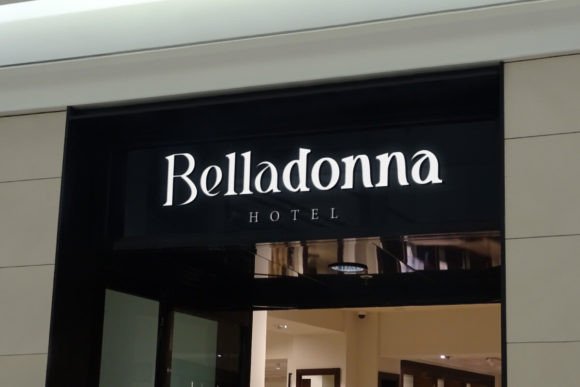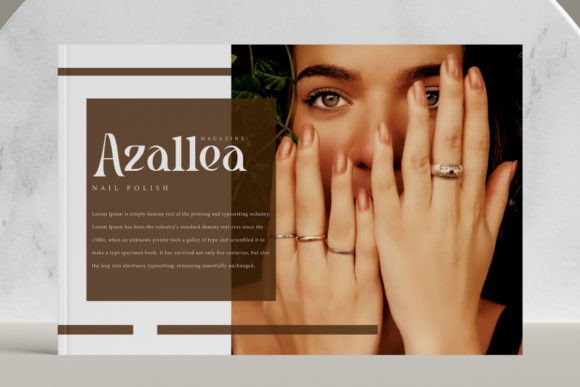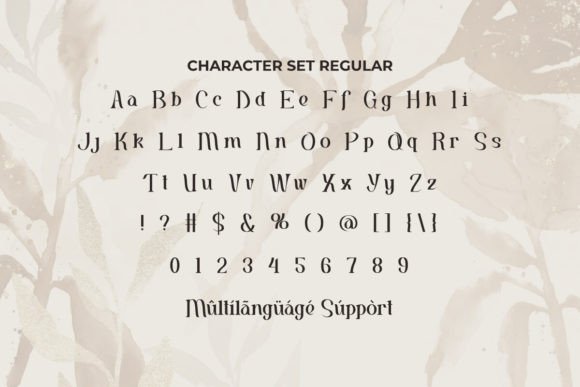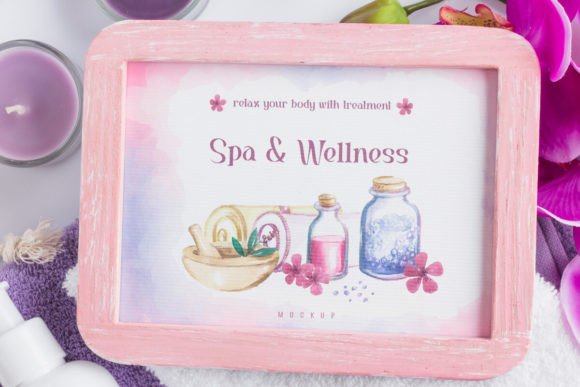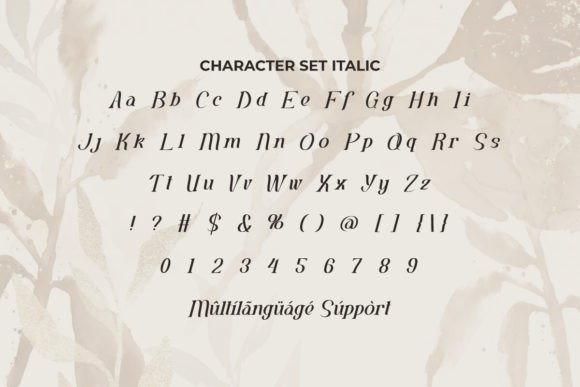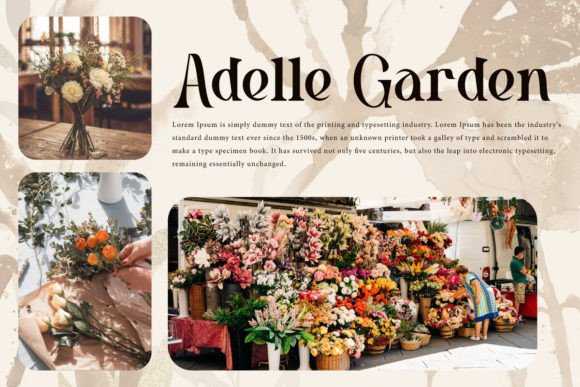
Introducing Deep Affection Font: Elevate Your Designs with Elegance
In the world of design, typography plays a crucial role in conveying the tone and aesthetic of a brand or project. For designers and crafters seeking to add a touch of sophistication and charm to their work, the Deep Affection Font is an exceptional choice. This beautiful serif font, available in various styles including Regular, Italic, and Bold, is poised to transform your designs into captivating visual experiences.
What Makes Deep Affection Font Stand Out?
The Deep Affection Font is distinguished by its classic serif design, which exudes elegance and refinement. Its versatility is evident in its range of styles:
- Regular: The standard style, perfect for body text and providing a clean, readable appearance.
- Italic: Adds a dynamic flair to your designs, ideal for emphasizing certain words or phrases.
- Bold: Makes a statement with its strong presence, great for headlines or highlighting key information.
This variety allows designers to play with text hierarchy, creating visually appealing and well-structured content that captures the audience’s attention.
Perfect for Various Industries
The Deep Affection Font’s versatility extends beyond its styles to its wide range of applications across different industries. Its elegant and sophisticated look makes it an ideal choice for:
- Bakery: Adds a warm, inviting touch to menus and branding.
- Boutique: Enhances the luxurious feel of fashion and lifestyle brands.
- Café and Restaurant: Creates a cozy and welcoming atmosphere for menus and signage.
- Cosmetic and Spa: Conveys a sense of luxury and care, perfect for branding and product labels.
- Florist and Handicrafts: Brings a touch of elegance and personalization to packaging and promotional materials.
- Homeware and Interior Design: Suitable for catalogs, packaging, and branding, offering a sophisticated look.
- Hotel: Enhances the hospitality experience with elegant signage, menus, and stationery.
- Publishing: Ideal for book covers, magazines, and any printed materials requiring a touch of classic elegance.
Why Choose Deep Affection Font?
Choosing the Deep Affection Font for your design projects comes with several benefits:
- Elegance: Adds a sophisticated touch to your designs, setting them apart.
- Versatility: With its range of styles, it’s suitable for a wide array of projects and industries.
- Readability: Despite its elegant design, it maintains high readability, even in smaller sizes.
- Customization: Offers the flexibility to create unique and personalized designs.
How to Use Deep Affection Font Effectively
To maximize the impact of the Deep Affection Font, consider the following tips:
- Mix and Match: Combine different styles (Regular, Italic, Bold) to create visual hierarchy and interest.
- Pair with Images: Use the font in conjunction with high-quality images that complement its elegance.
- Consider Context: Ensure the font aligns with the brand’s tone and industry standards.
The Deep Affection Font is a powerful tool for designers and crafters aiming to infuse their projects with elegance and sophistication. Its range of styles, versatility across industries, and classic serif design make it an excellent choice for anyone looking to elevate their designs. Whether you’re working on a bakery menu, a boutique’s branding, or a publishing project, this font is sure to make your work more attractive and engaging. Embrace the Deep Affection Font in your next project and experience the transformation it brings to your designs.